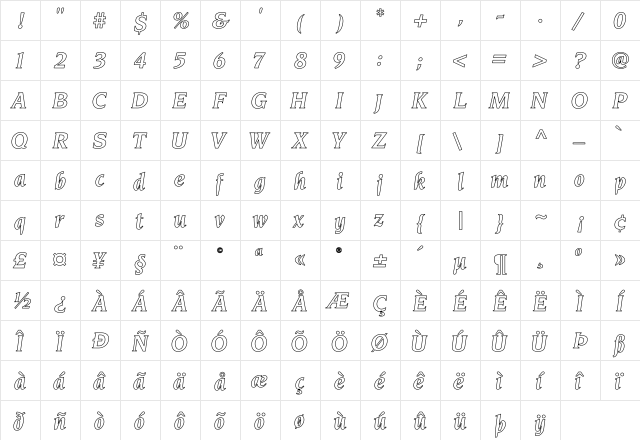
Neuvarese-BoldItalic Hollow Regular Font Preview
Design Context for Neuvarese-BoldItalic Hollow Typeface
Neuvarese-BoldItalic Hollow offers clean, dependable letterforms without strong stylistic allegiance, making it a practical choice for designers who need flexibility. The dynamic lean of this cut emphasises speed and emphasis in any layout. Its bold stroke weight gives it real presence on the page.
Pro Tip: Try Neuvarese-BoldItalic Hollow for annotation and caption copy alongside an upright companion — the contrast in angle creates a dynamic but ordered typographic system.